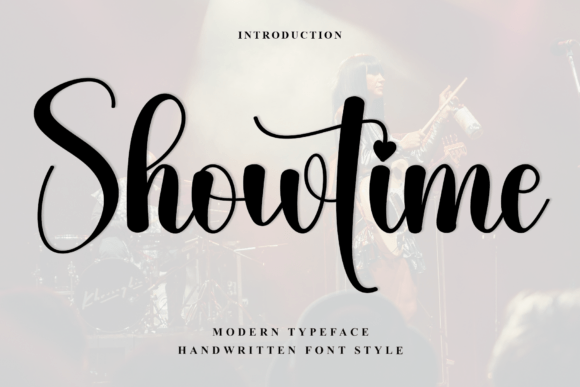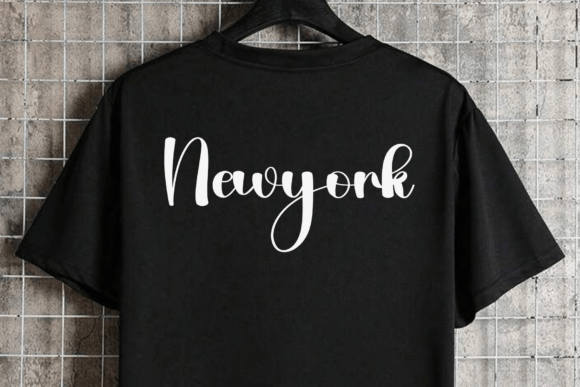
Showtime Font: Elegant Cursive Font for Wedding & Branding Design
About the Showtime Font
Discover the charm of Showtime Font. This font is a perfect blend of modern aesthetics and classic appeal. Showtime is a sweet and cursive handwritten font. This gentle font will look gorgeous on a variety of design ideas. It will add a joyful and romantic touch to each of your projects! Perfectly fit for branding, logo, wedding things, greeting cards, fashion, lookbook, marketing promotion, and any time you want your design to look fancy and elegant but still casual.
Showtime Font Usage Examples
Showtime Font Example